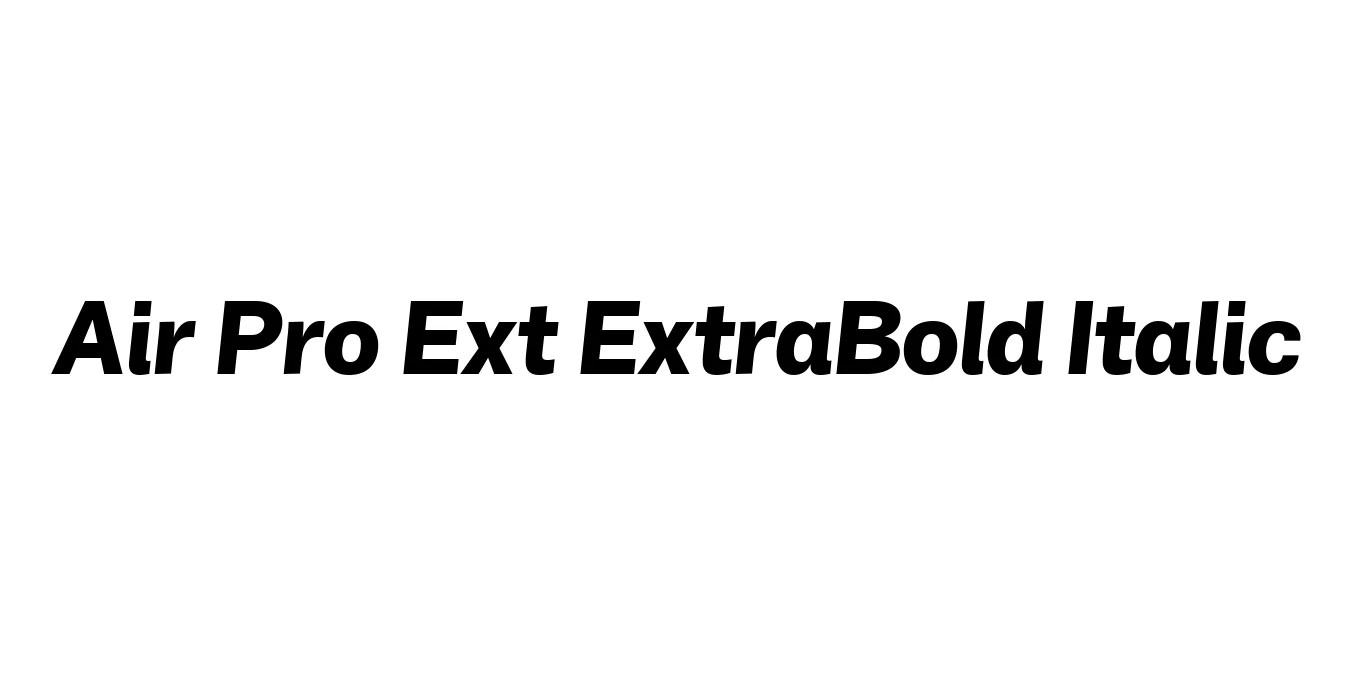
Air Pro Ext ExtraBold Italic
Designed by Neil Summerour (Positype)
Air Pro Ext ExtraBold Italic is a dynamic and commanding member of the expansive Air Pro family, meticulously crafted by Neil Summerour. This typeface is defined by its significantly extended horizontal proportions and a sharp, aggressive slant that together project an image of speed, power, and modern stability. The ExtraBold weight ensures that the font commands attention in any layout, making it a premier choice for high-impact display work where a bold, cinematic presence is required.
The design of the font features clean, geometric lines that bridge the gap between technical precision and contemporary aesthetics. Its architectural quality allows it to maintain exceptional clarity even in challenging print and digital environments. Whether used for automotive branding, architectural signage, or futuristic gaming interfaces, Air Pro Ext ExtraBold Italic offers a sophisticated yet muscular look that feels both timeless and forward-looking, fitting perfectly within high-end professional design systems.
Air Pro Ext ExtraBold Italic Best Uses
Ideal for logotypes and corporate identities that require a wide, strong footprint.
Perfect for speedometers, car badges, and racing-themed marketing materials.
Great for bold, space-filling titles in luxury or tech magazines.
Excellent for futuristic or high-speed racing game interfaces and titles.